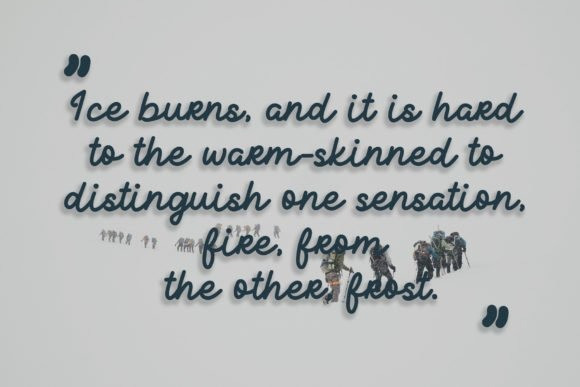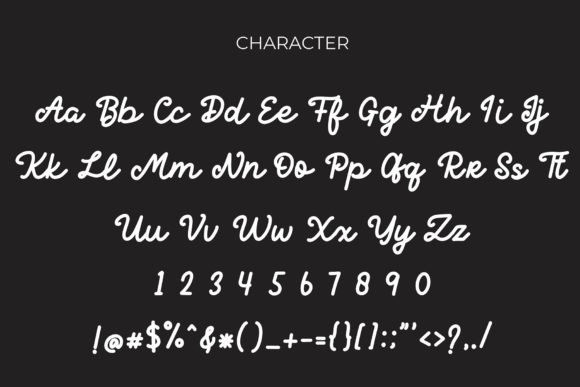
Barcelony Handwritten Font
Barcelony Signature is a elegant and a smooth casual monoline signature stylish script.
Barcelony Signature is perfect for branding projects, logo, wedding designs, social media posts, advertisements, product packaging, product designs, label, photography, watermark, invitation, stationery and any projects that need handwriting taste.